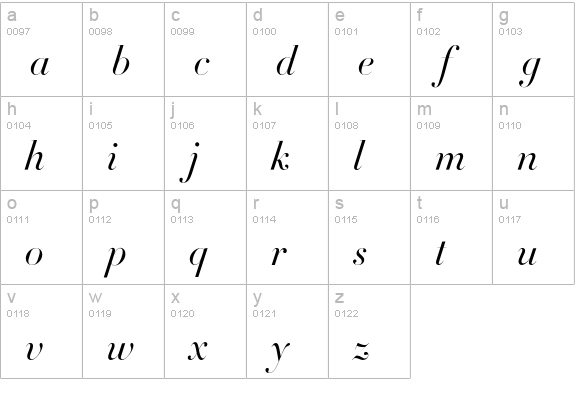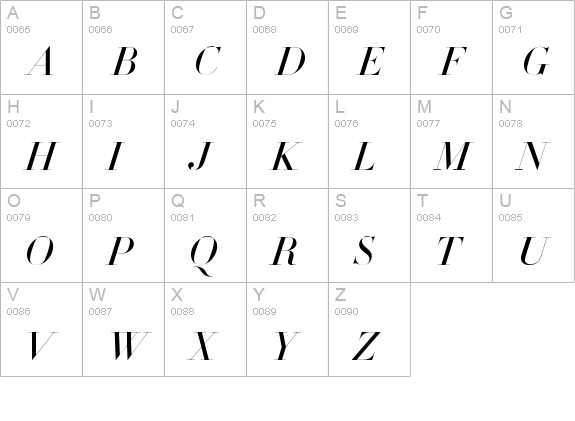
Didot-HTF-L64-Light-Ital Font Details
Didot-HTF-L64-Light-Ital is a refined, elegant variant in the Didot typeface family \xE2\x80\x94 well suited to elegant body text, refined sub-headings, and luxury branding.
The Didot-HTF-L64-Light-Ital font is a timeless and elegant typeface that exudes sophistication and style. With its slender and graceful letterforms, this font is perfect for adding a touch of refinement to any design project. The light italic weight of the font strikes a perfect balance between delicacy and legibility, making it ideal for use in editorial design, branding, and more. Best of all, this exquisite font is available for free download at FontsMarket.com. Whether you're looking to elevate your typography game or simply appreciate the beauty of well-crafted lettering, the Didot-HTF-L64-Light-Ital font is sure to impress with its classic charm and versatility. Download it today and enhance your creative projects with this stunning typeface.